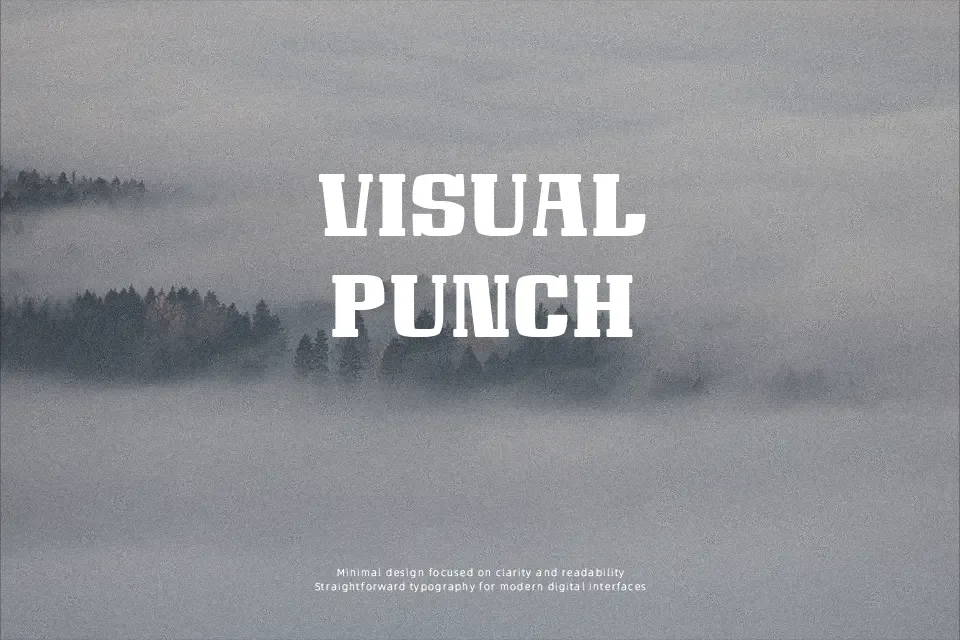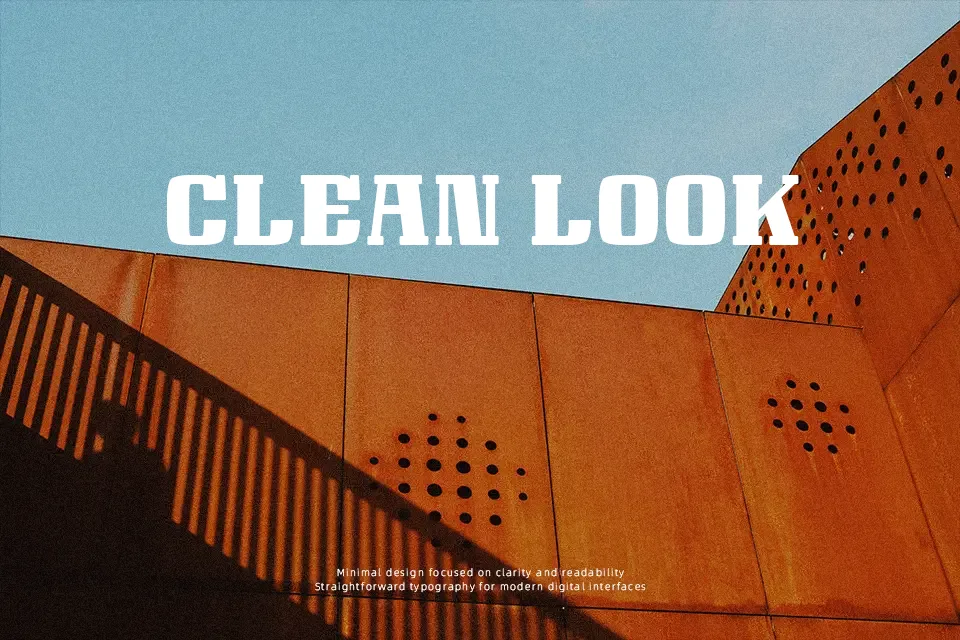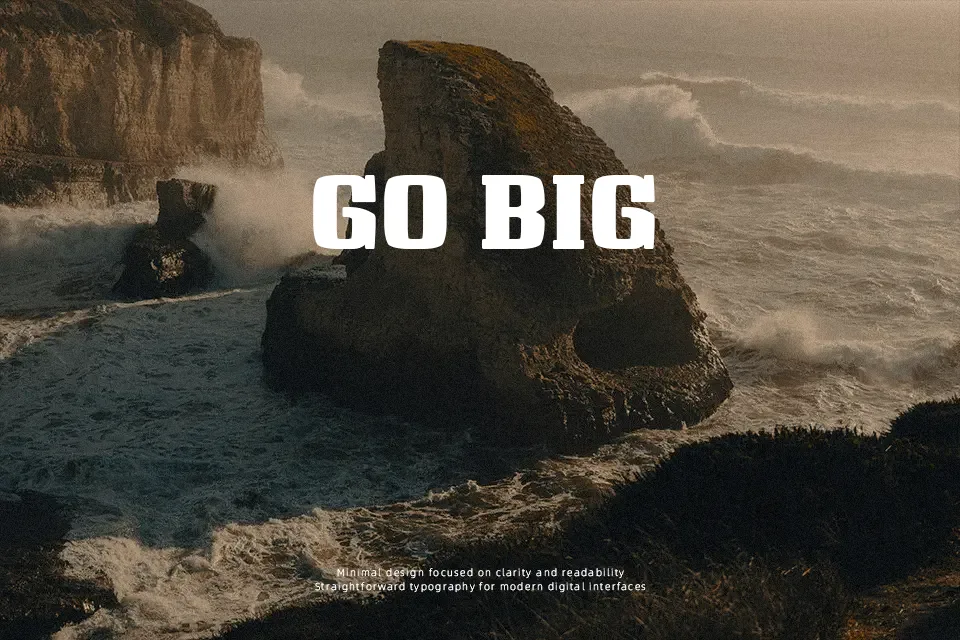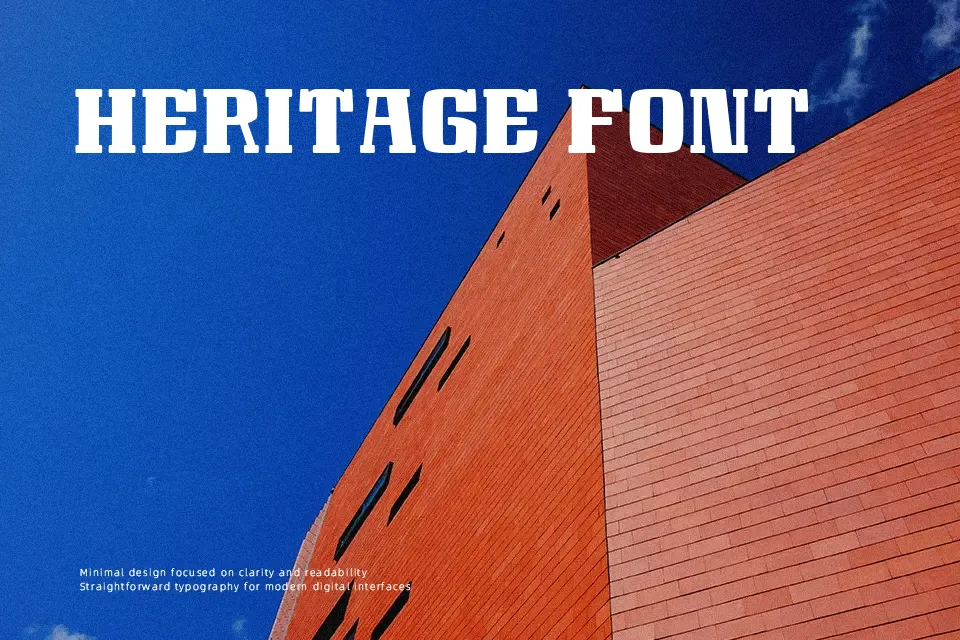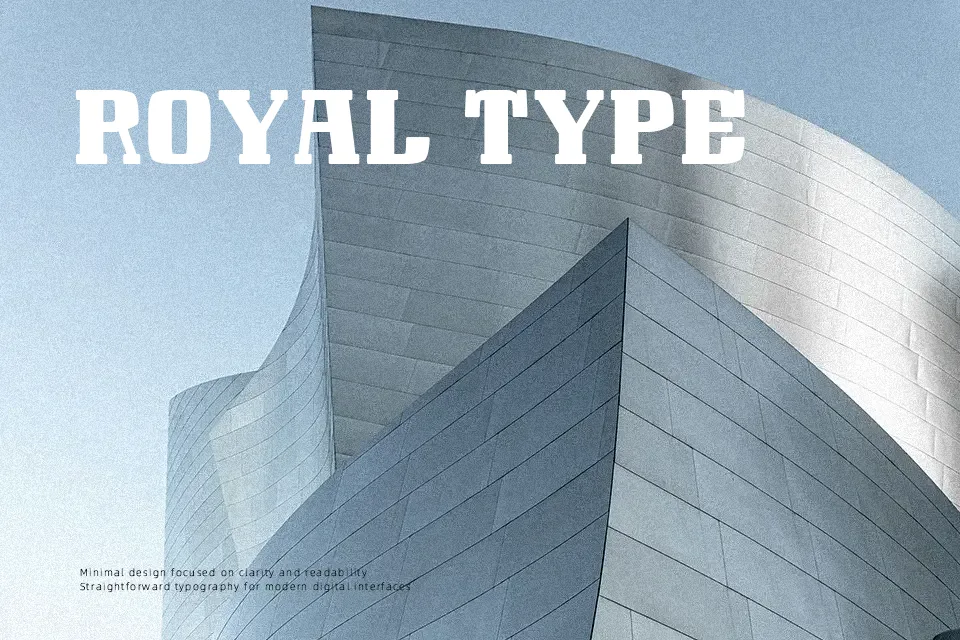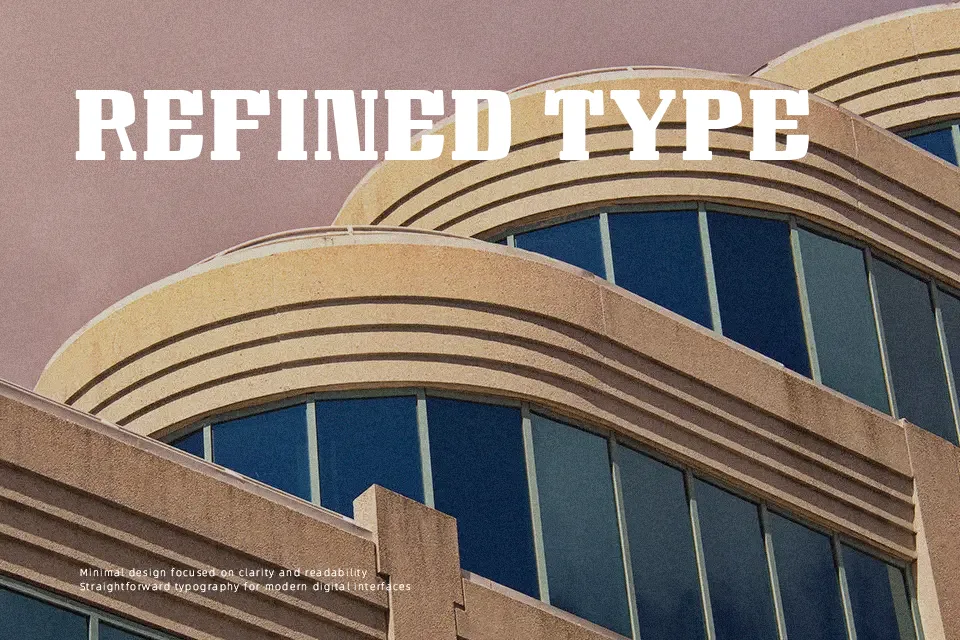
Almond Powder Font
Blocky square serifs, looped stems, and deliberately missing strokes make Almond Powder feel like a design decision, not an accident. Goma Shin constructed this display typeface around geometric patterns that push toward quirky without sacrificing legibility at large sizes. It handles poster headlines, Instagram filter overlays, and educational worksheet headers with ease — anywhere a bold, slightly unconventional type voice is wanted. The stroke structure leans heavy and condensed, giving it natural authority in packaging or signage. That same boldness becomes a liability in running text or any context that calls for fine elegance; it simply wasn’t built for refinement. Use it when you need personality with a professional edge, not when you need subtlety.
– Social media graphics and short-form content headers
– Food and snack product packaging
– Kids’ educational worksheets or classroom display materials
– Poster and event flyer headlines
– Long-form body text or editorial reading contexts
– Luxury or high-fashion branding where elegance is central
– Corporate reports and formal business documents
– Small-size usage where stroke details become muddy
Perfect for advertising, headline, and kids, with a bold and display style.